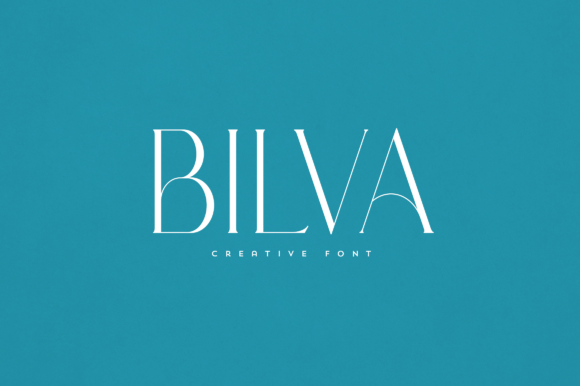
Embark on a typographic odyssey with Bilva, an exclusive serif font that transcends the ordinary. This masterpiece is the brainchild of vladfedotovv, a visionary artist who has infused Bilva with an air of unparalleled elegance and versatility.
Indulge in the graceful curves and striking serifs that adorn each character, meticulously crafted to create harmony and visual delight. Bilva's exceptional design elevates ordinary text into captivating statements, transforming your creative endeavors into unforgettable expressions.
Unleash your creativity and let Bilva weave its magic across logos, branding, headlines, and plain text. Its allure is boundless, beckoning you to explore countless design possibilities. Whether you're crafting a luxurious fashion brand or designing sophisticated product packaging, Bilva is your trusted companion, ready to elevate your vision.
Immerse yourself in the world of Bilva, where typography meets art. This font is the epitome of sophistication, a symphony of style that resonates with discerning eyes. Adorn your homeware designs with a touch of timeless elegance, elevate magazine headers to new heights, or let Bilva's allure shine as a captivating text overlay, transforming ordinary images into visual masterpieces.
With Bilva, the boundaries of creativity dissolve, giving way to a world of endless possibilities. Whether you're a seasoned designer or embarking on your creative journey, Bilva is your steadfast companion, guiding you towards typographic excellence. Embrace the beauty of Bilva and let your designs flourish like never before.